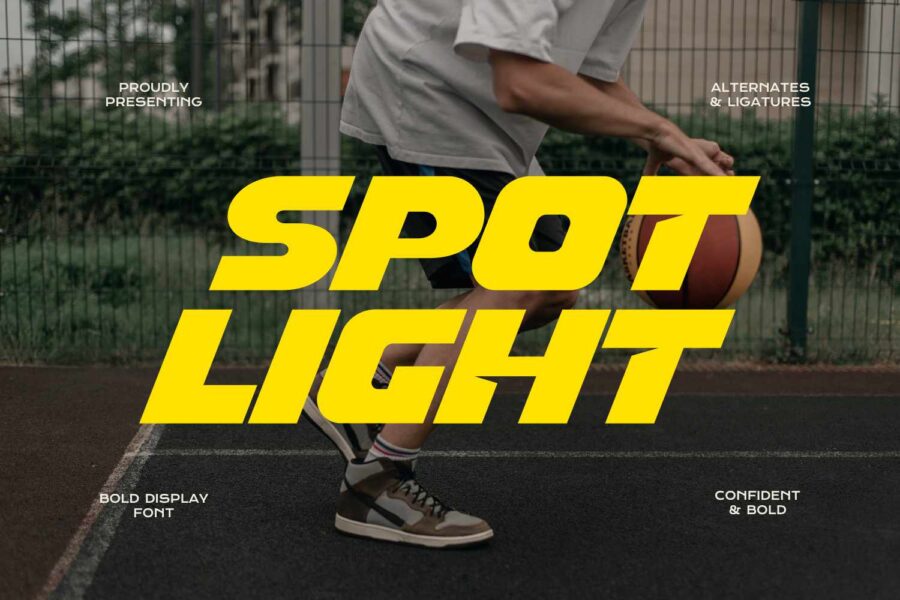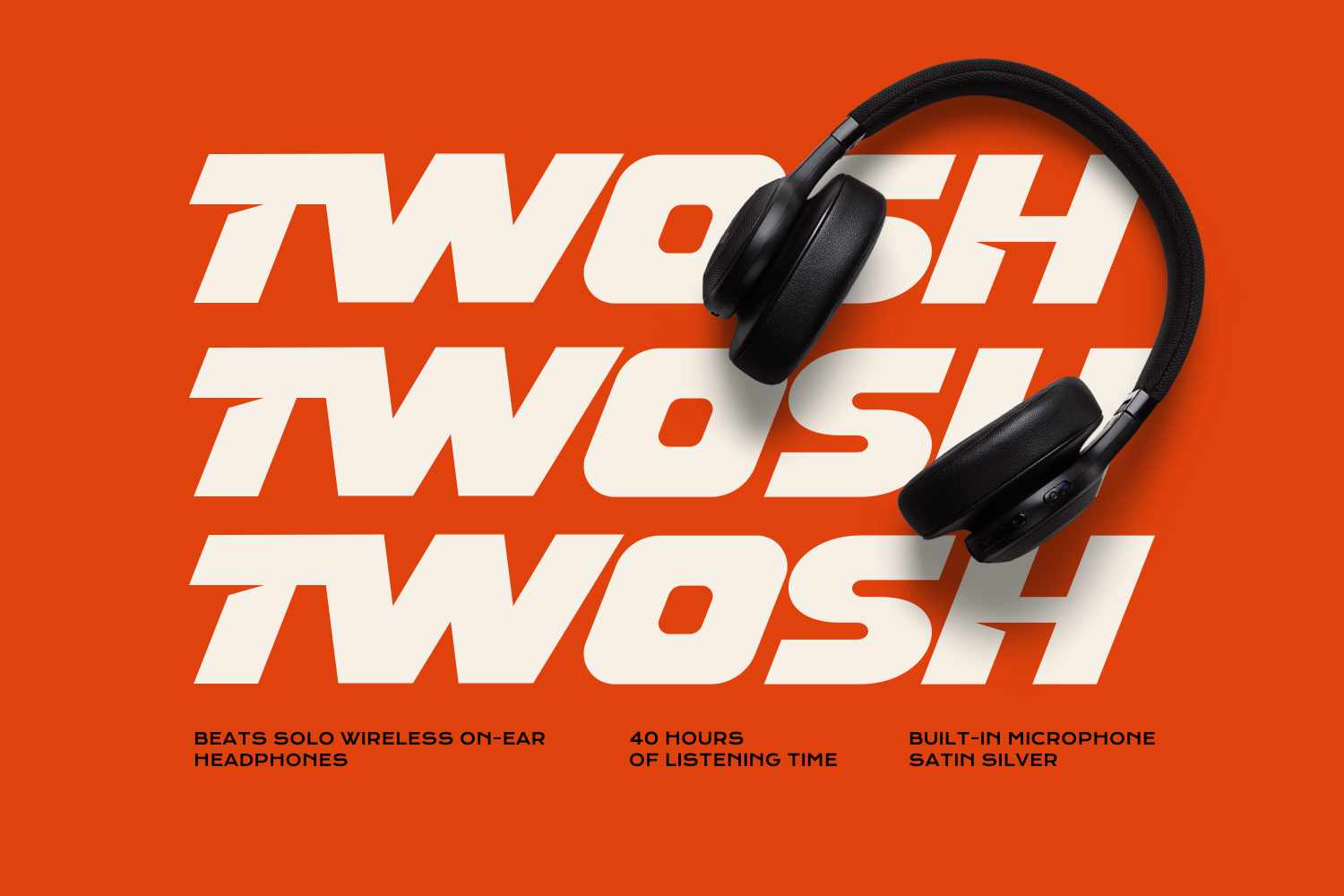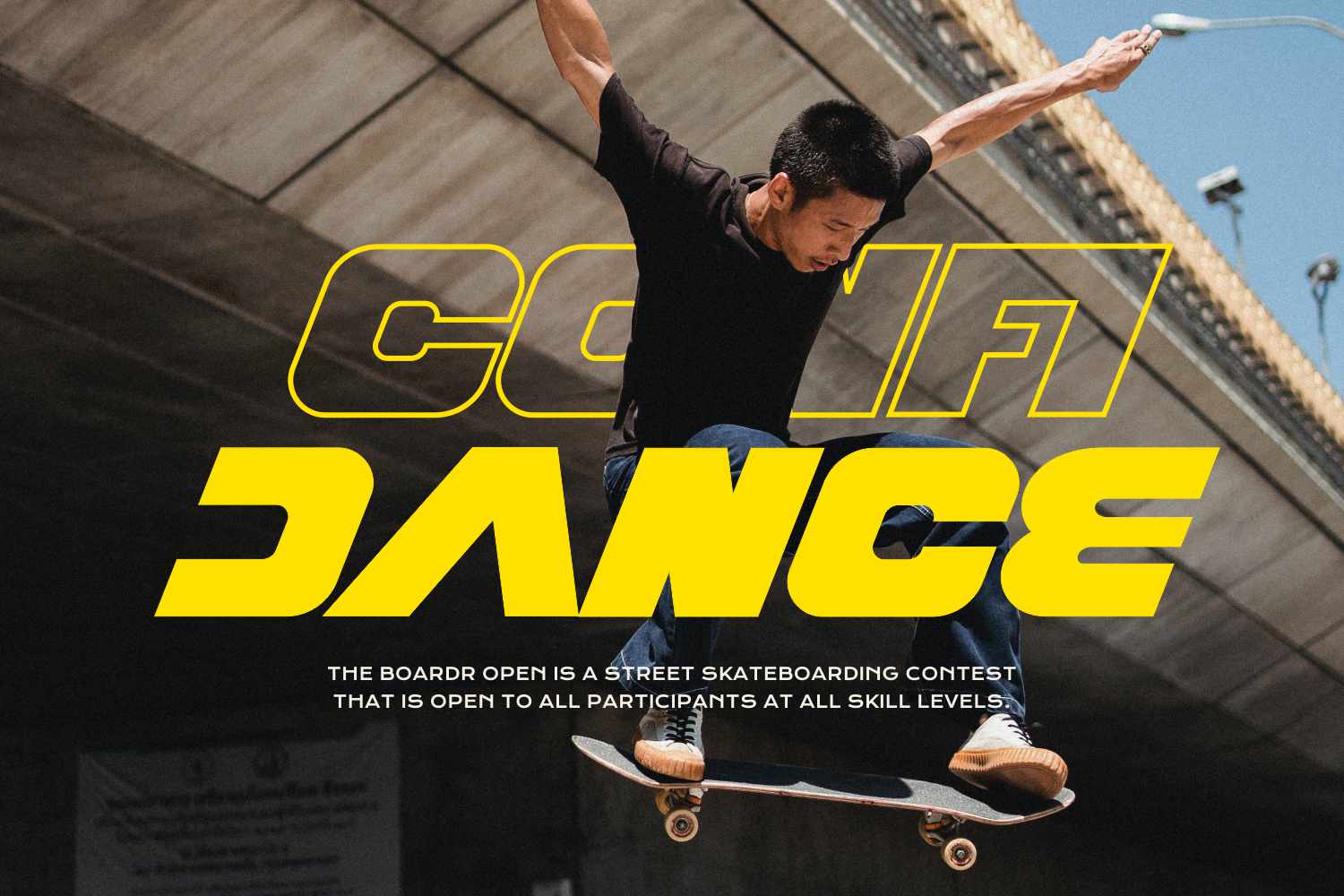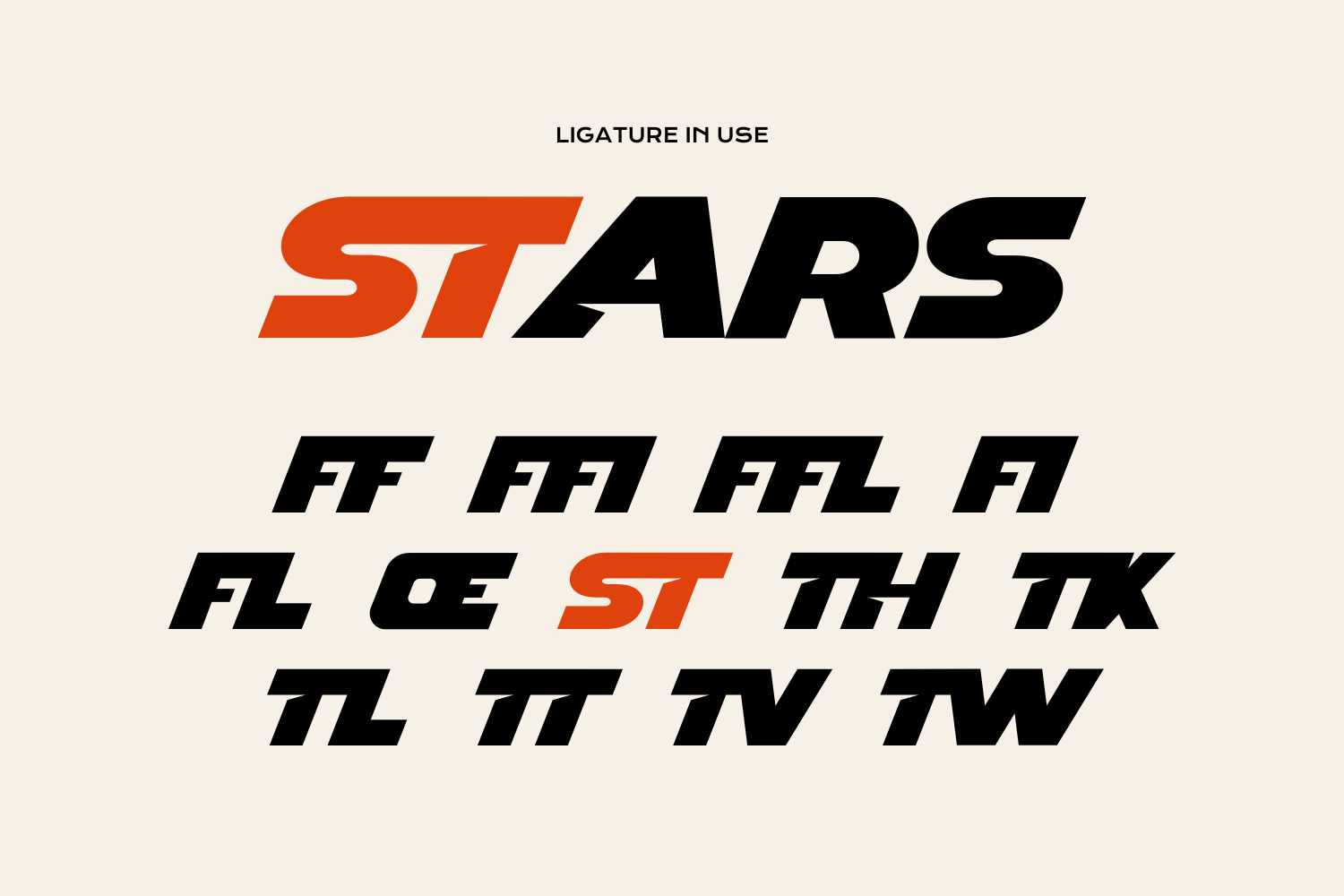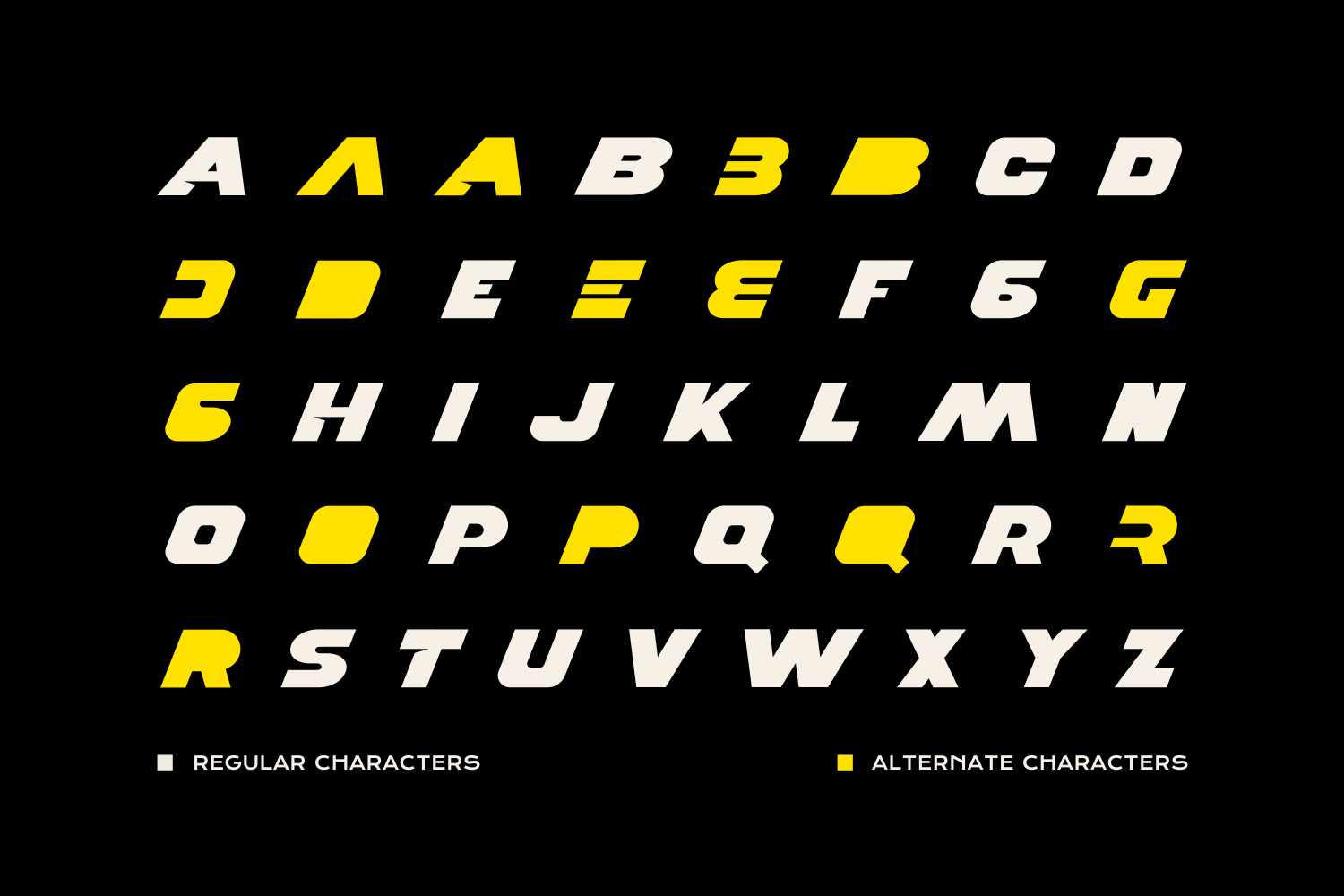
Spot Light
Spot Light is a bold and modern display font built for speed, strength, and impact. Its sharp angles, dynamic slant, and strong geometric forms make it perfect for sports branding, energetic advertising, and high-impact headlines. With a confident presence and streamlined structure, Spot Light instantly communicates motion and power, making it ideal for projects that demand attention.
Packed with alternates and ligatures, Spot Light offers creative flexibility for logos, posters, and merchandise. Its versatile character set includes sleek alternates for a unique edge and special ligatures for seamless typography. Whether used in athletic promotions, urban fashion branding, or tech-forward campaigns, this typeface delivers a bold statement every time.